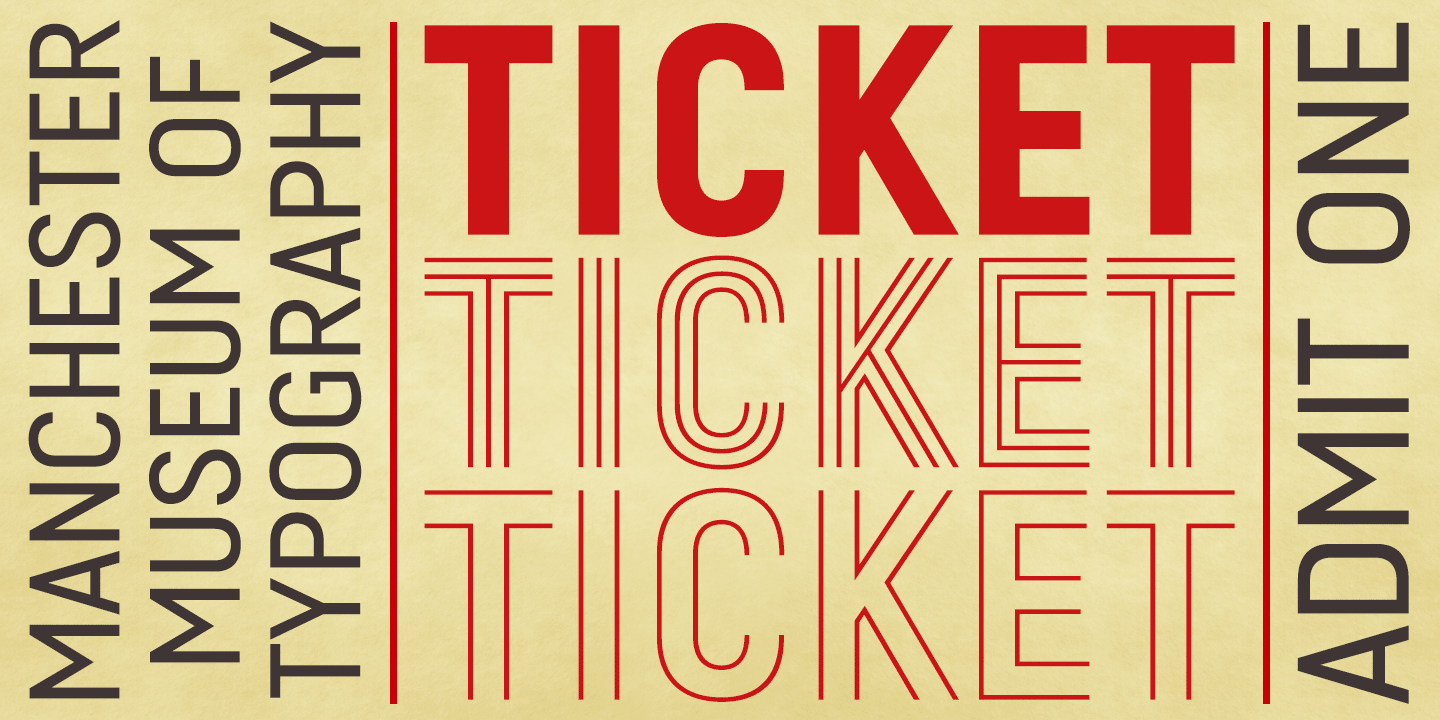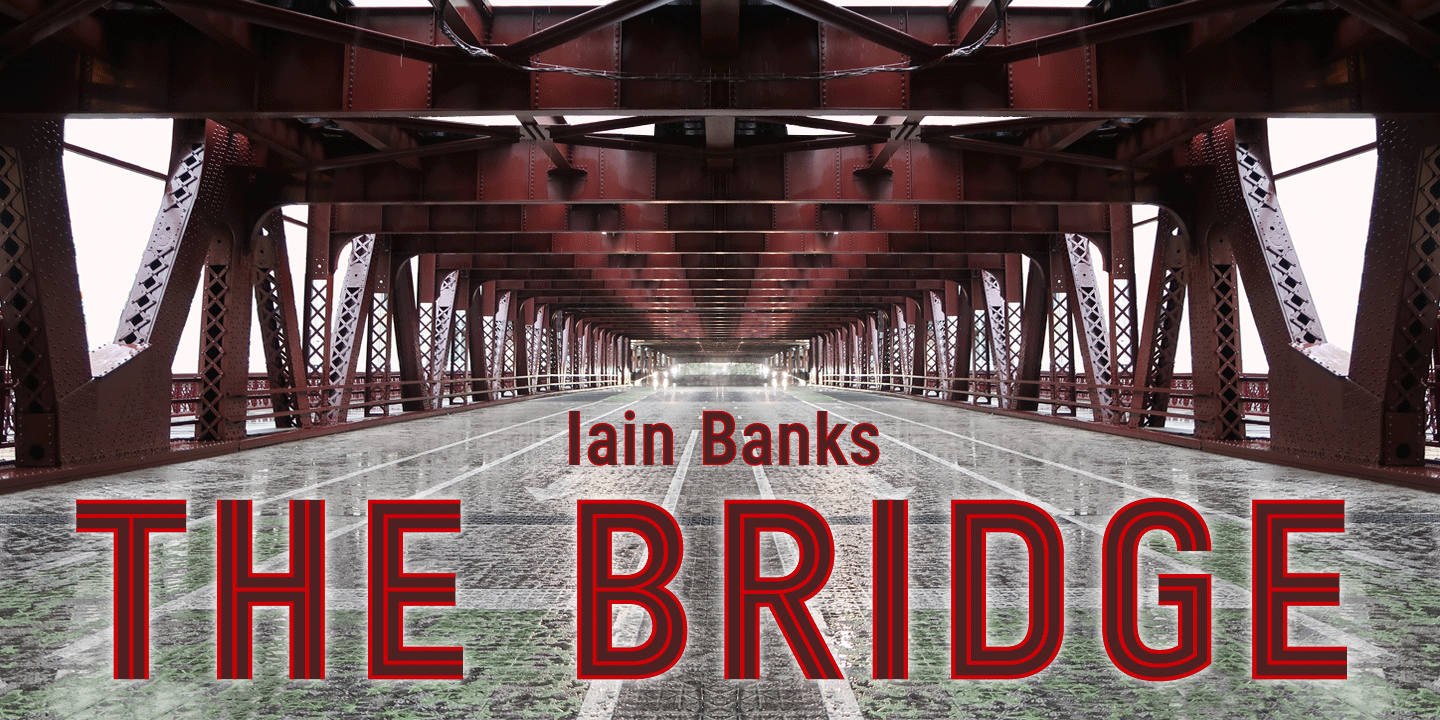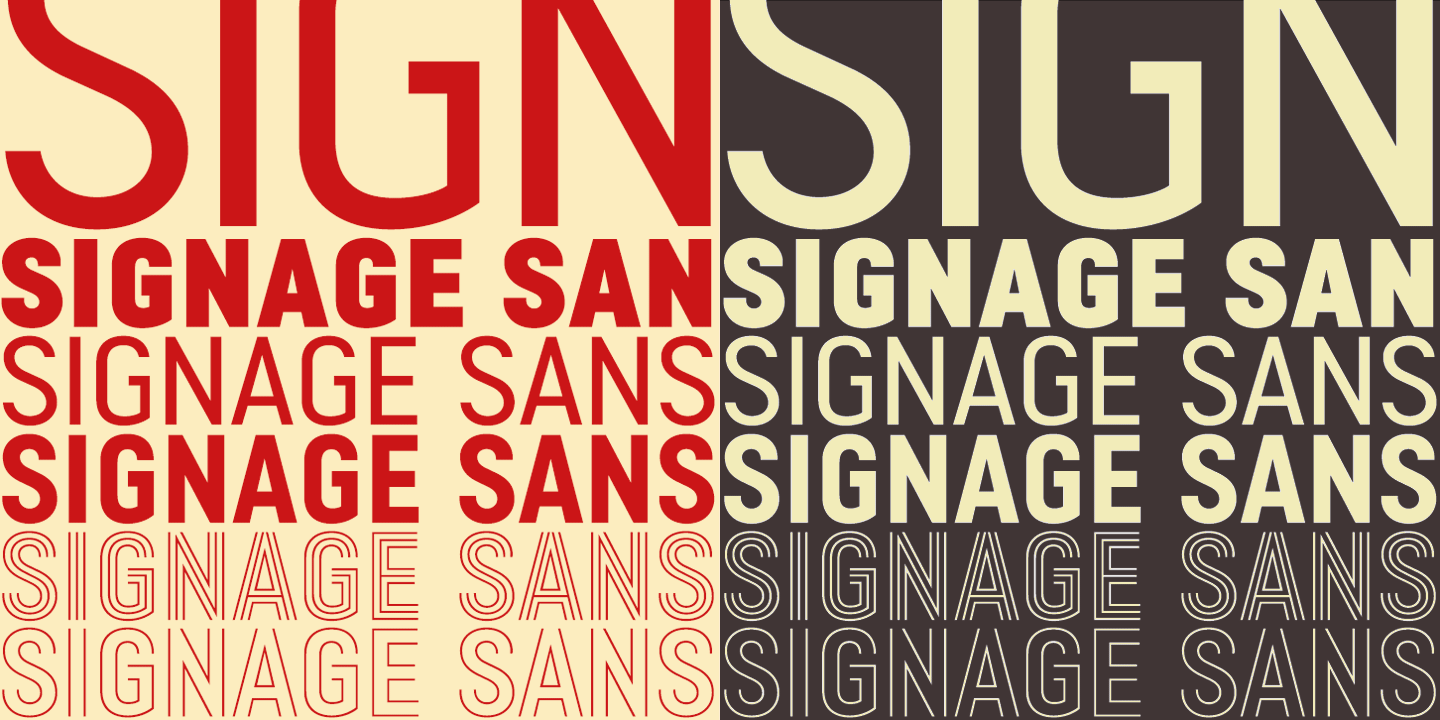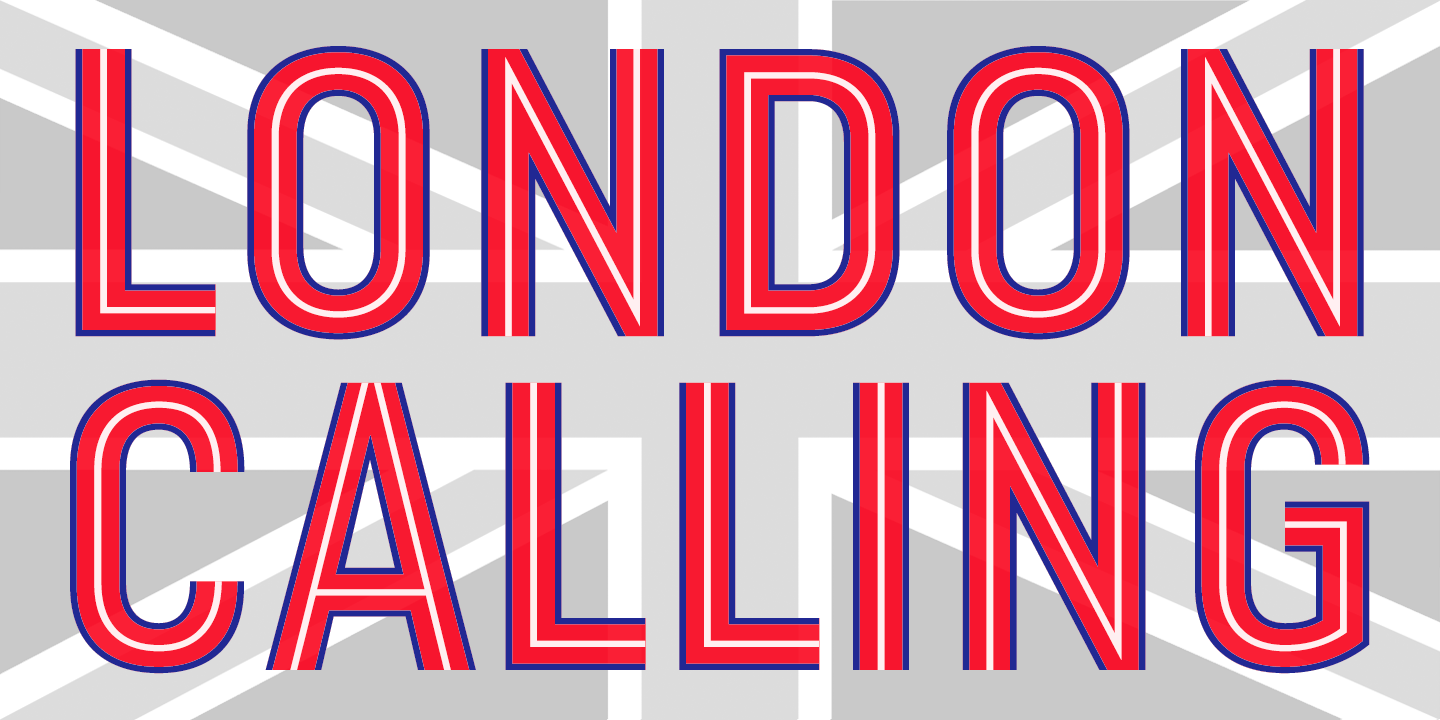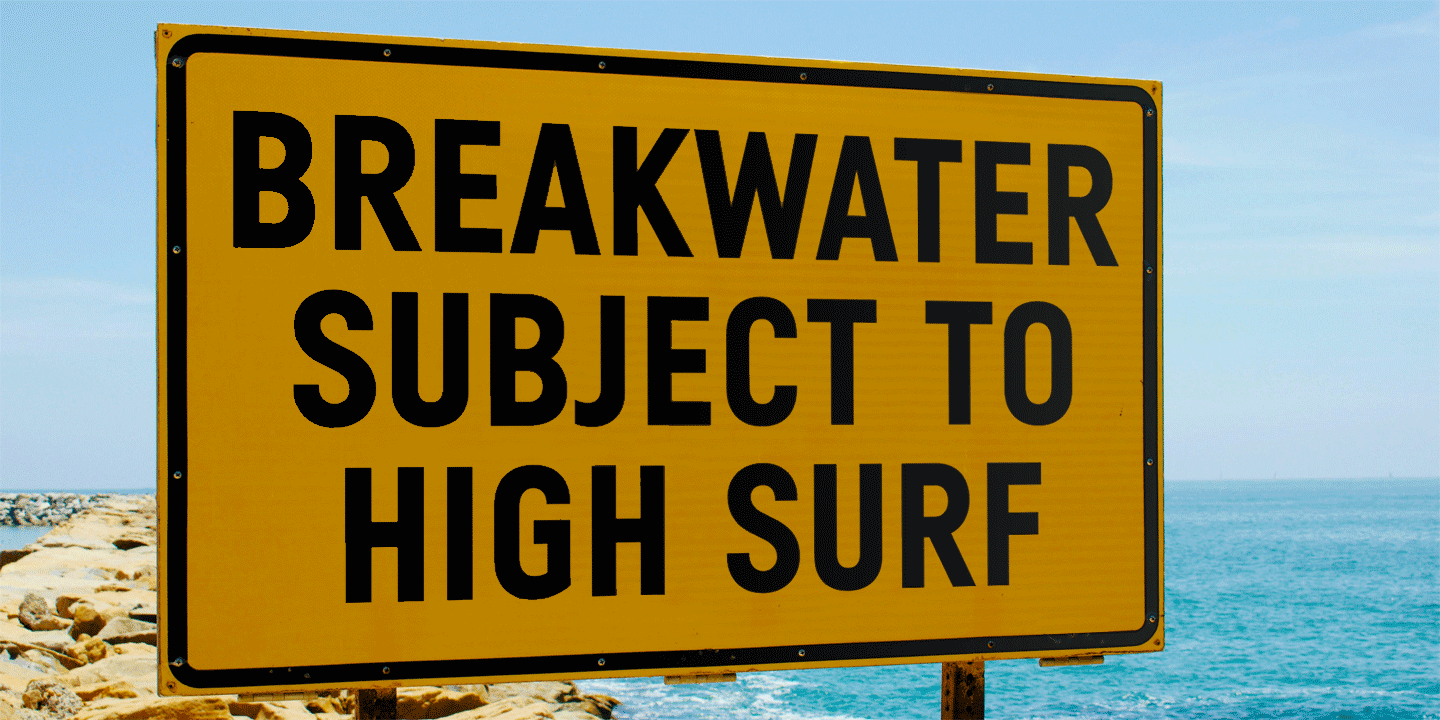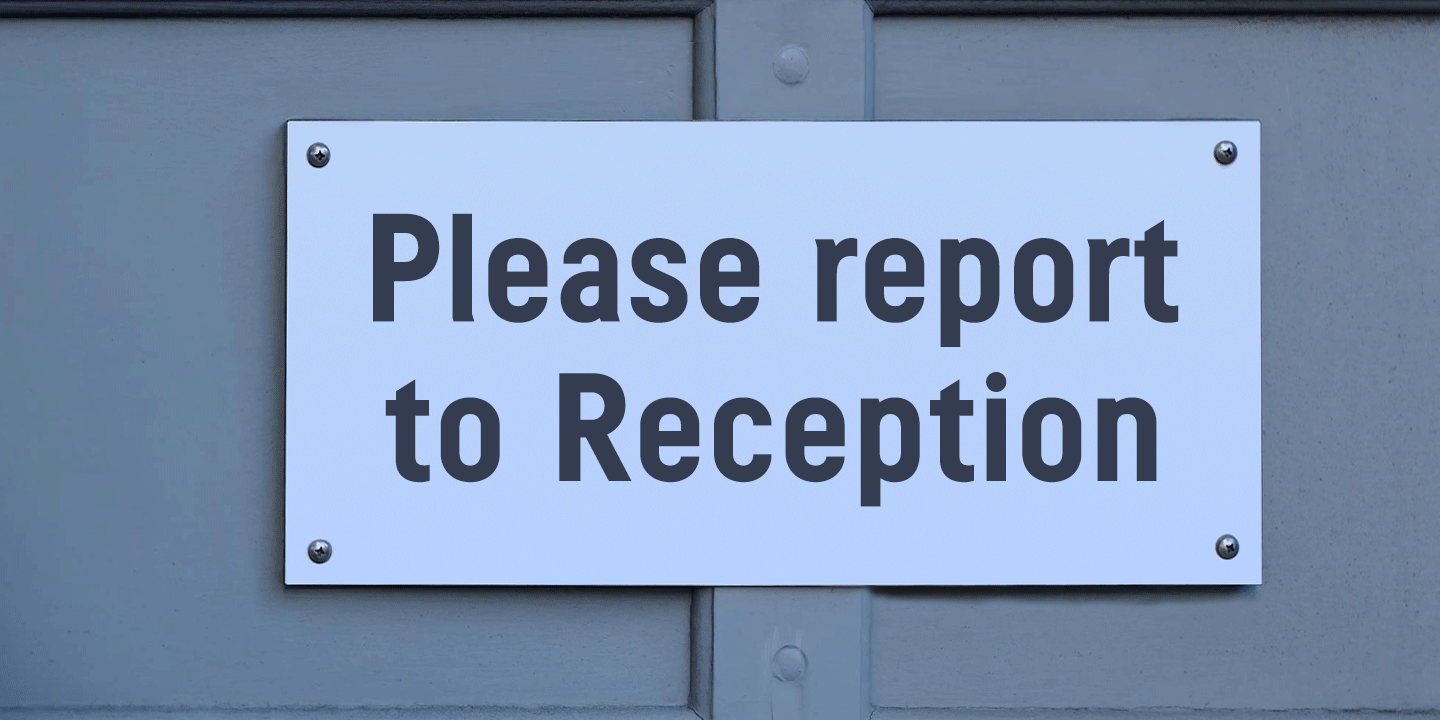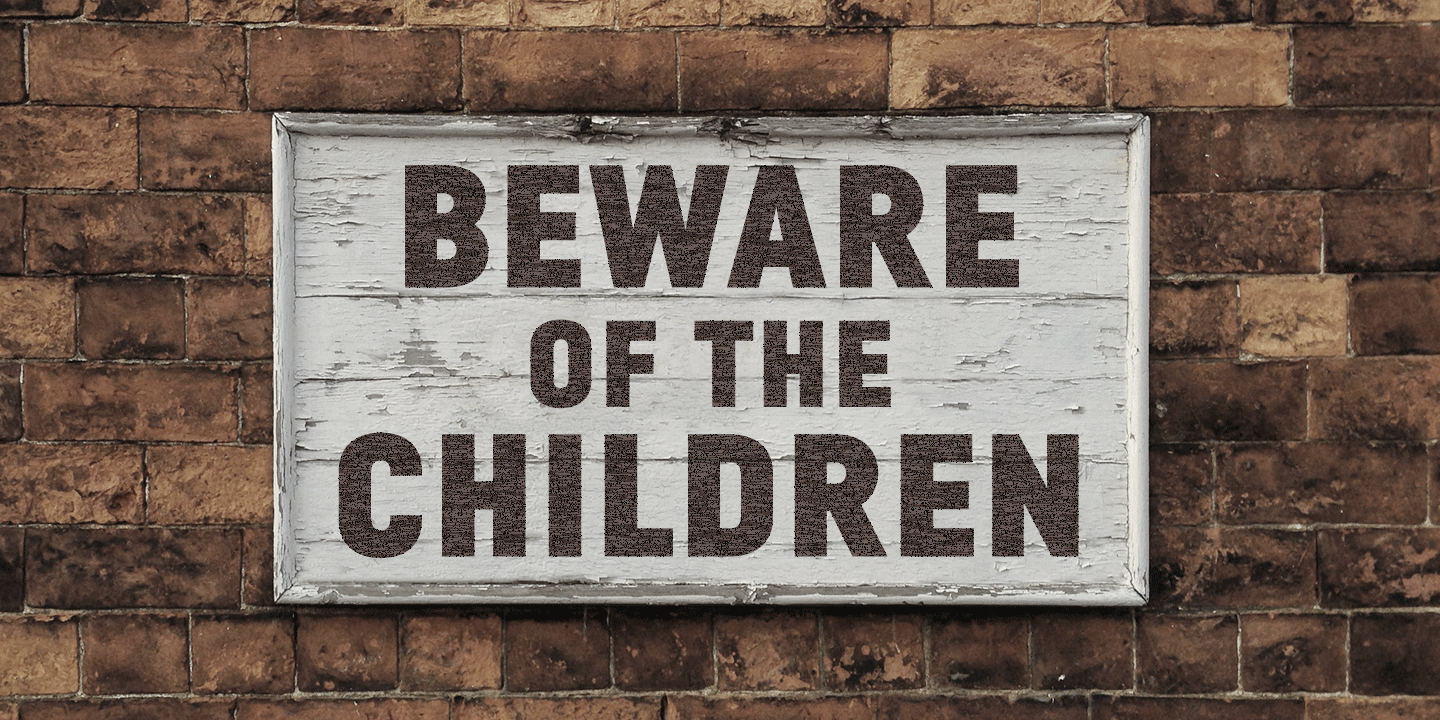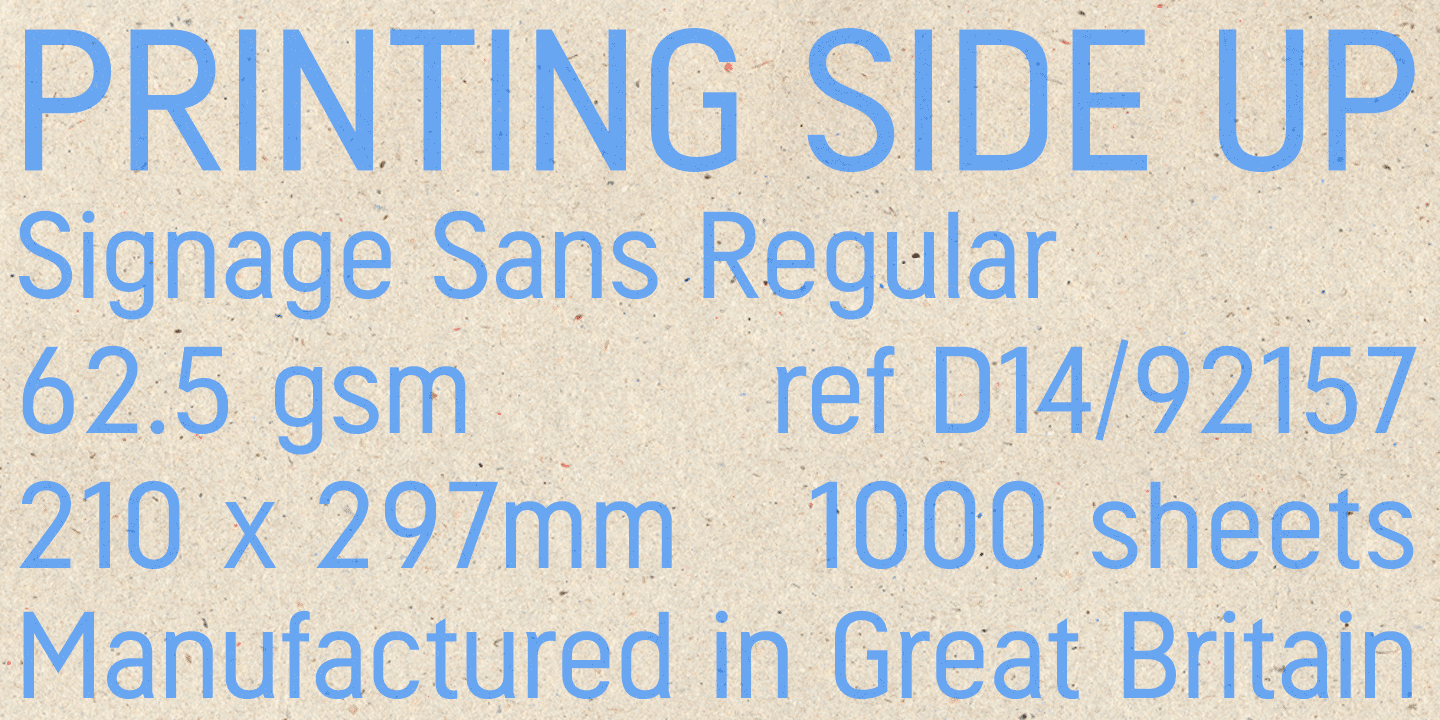
Signage Sans
Font Family by K-Type
Buy NowThe Signage Sans typeface is a monolinear, space-saving condensed designed for signs, notices, posters, titles, credits, headings, banners and captions.
The basic family comprises Regular, Italic, Bold, and Bold Italic. A Heavy and Heavy Italic package is also available. An additional package of bold Triline and Biline fonts has the same spacing and kerning as the Bold weight for overlapping and companion usage. The fonts contain a full complement of Latin Extended-A characters.
The x-height is about as tall as you'll find to assist readable flow and lowercase legibility. Short ascenders and descenders, and low-rise diacritics, allow for tighter leading in multiple lines of text.